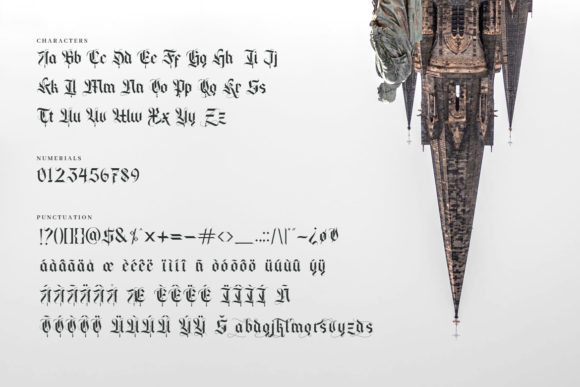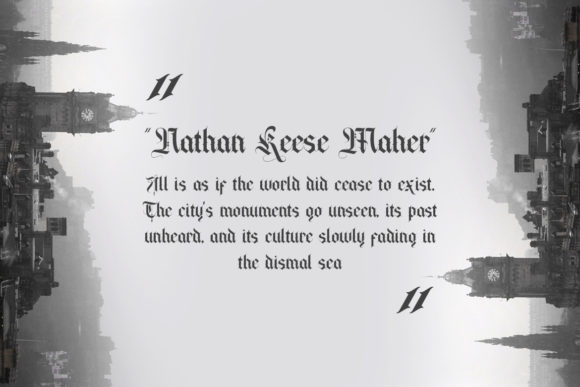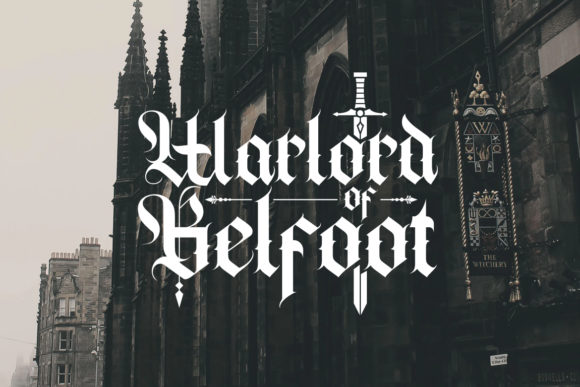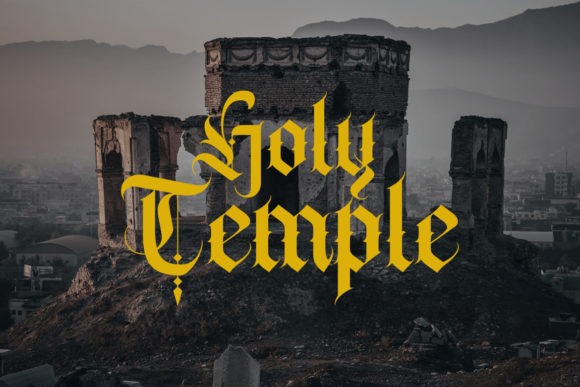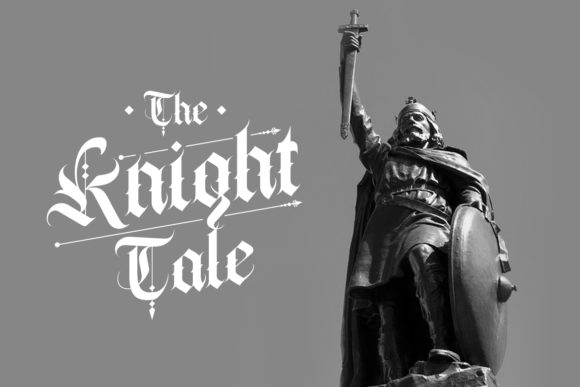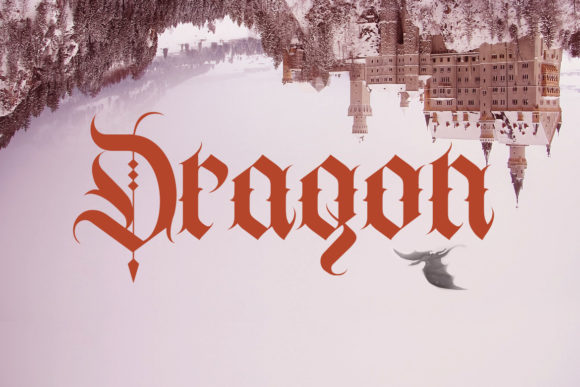
The Perfect Canvas for Your Creativity
Have you ever stared at a blank page, eager to bring your imagination to life, but struggling to find the right words to express yourself? The blank canvas can be intimidating, but with the right tools, your ideas can shine brighter than ever.
That’s where the Cambridge Font comes in – a stunning blackletter font that embodies the essence of gothic elegance. This beautiful font is designed to elevate your creative projects, transforming them into breathtaking masterpieces. As a designer, you understand the importance of selecting the perfect font to convey your message. The Cambridge Font is more than just a typeface; it’s a statement piece that will set your work apart from the rest.
Cambridge Font Key Features
- Font Family: The Cambridge font is a serif font family designed to mimic the look of traditional printed books. It is available in several weights, from Light to Black.
- Resolution: The font is designed for use at high resolutions, making it ideal for print and digital applications where clarity and readability are crucial.
- Unique Characteristics: The Cambridge font features a classic, elegant design with subtle flair and a high x-height, making it well-suited for use in academic and professional settings.
- Font Metrics: The font has a x-height of 0.44em, an ascender height of 0.63em, and a descender height of 0.35em, providing a balanced and readable design.
Cambridge Font Review
As a designer, I’ve had the chance to work with the Cambridge Font, and here’s my honest take.
- The classic, elegant feel of the font is perfect for formal documents, such as academic papers or business reports.
- The font’s legibility is excellent, making it a great choice for body text.
- The font family includes a range of weights and styles, allowing for flexibility in design.
- The font can feel a bit dated, which may not be ideal for modern designs that require a more contemporary feel.
- The font’s x-height can be a bit small, which may affect readability at smaller font sizes.
- The font family may not be as extensive as some other popular font families, limiting customization options.
The Cambridge Font is a solid choice for traditional designs, but it may not be the best fit for modern or innovative projects. It’s a reliable option for body text and formal documents, but may require additional styling to stand out in more creative designs.
The Cambridge Font is ideal for:
- Formal invitations and stationery
- Business reports and presentations
- Academic papers and theses
- Wedding and event invitations
Playfair Display is an elegant serif font suitable for titles, headings, and high-end branding. It’s ideal for designs that require sophistication and luxury. Compared to Cambridge Font, Playfair Display has a more elaborate and ornate design, making it perfect for special occasions or luxury products.
2. Georgia
Georgia is a classic serif font designed for body text and reading. It’s a good choice for publications, websites, and documents where readability is crucial. Unlike Cambridge Font, Georgia is more straightforward and easier to read, making it suitable for large blocks of text.
3. Bodoni
Bodoni is a sleek and modern serif font ideal for titles, headings, and fashion brands. It’s perfect for designs that require a touch of sophistication and elegance. Compared to Cambridge Font, Bodoni has a more streamlined and geometric design, making it suitable for modern and minimalist designs.